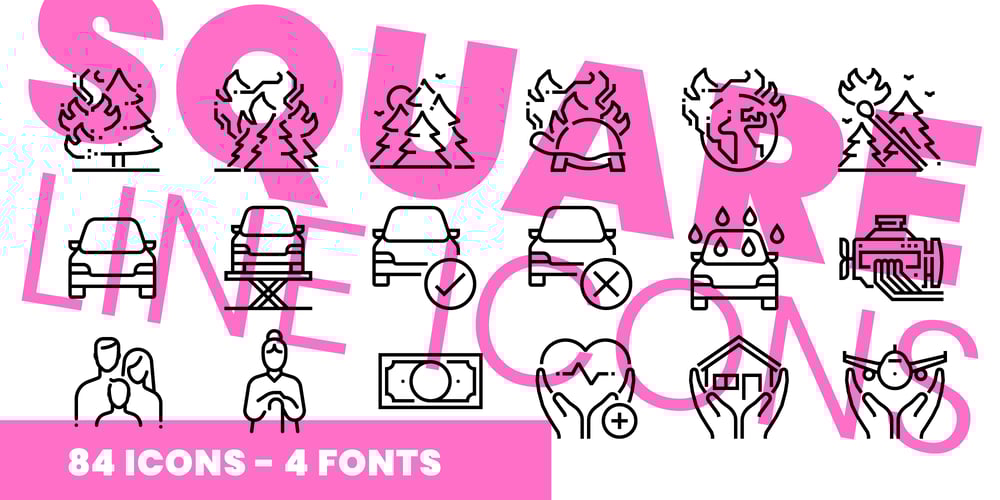
Square Line Icons Insurance Font Family was designed by Ozalp Furkan Eroz and published by Howcolour. Square Line Icons Insurance contains 4 styles and family package options. The square icons focus on maximizing the meaning by minimizing the symbols. Let your viewers understand your data without disorientation. Use a metaphorical icon library, designed for fast, intuitive human recognition.